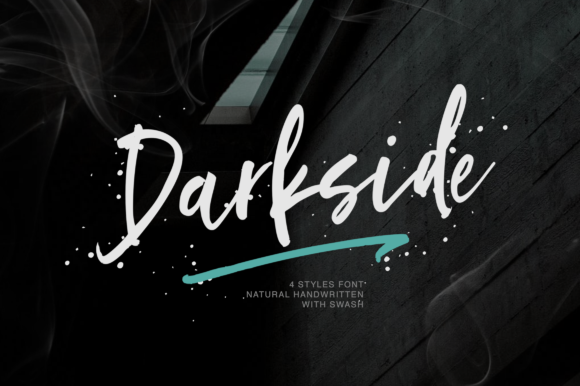
Prepare to be entranced by Darkside, a captivating script font that whispers of mystery and intrigue. Its alluring curves and sharp edges dance across the page, evoking a sense of power and enchantment.
Unleash your inner sorcerer with Darkside, the font that transforms your words into spellbinding incantations. Its bold strokes command attention, while its intricate details invite closer examination.
With Darkside, you'll cast a spell over your audience, enchanting them with your captivating words. Whether you're conjuring tales of adventure or casting spells of romance, Darkside will add a touch of magic to every creation.
So, step into the shadows and embrace your dark side. Let Darkside guide your words on a mystical journey that will leave your readers spellbound.